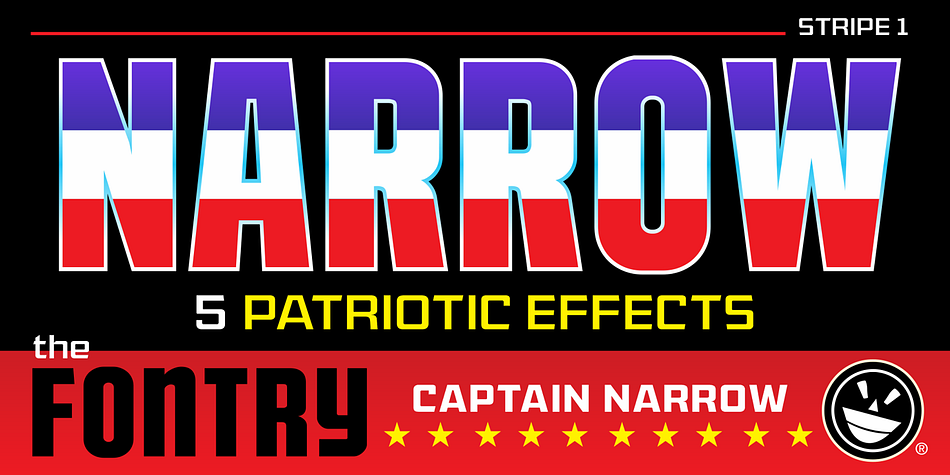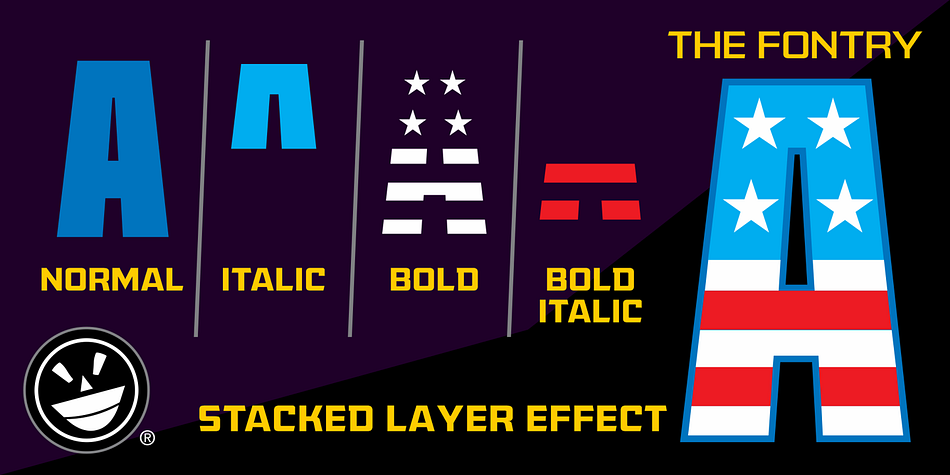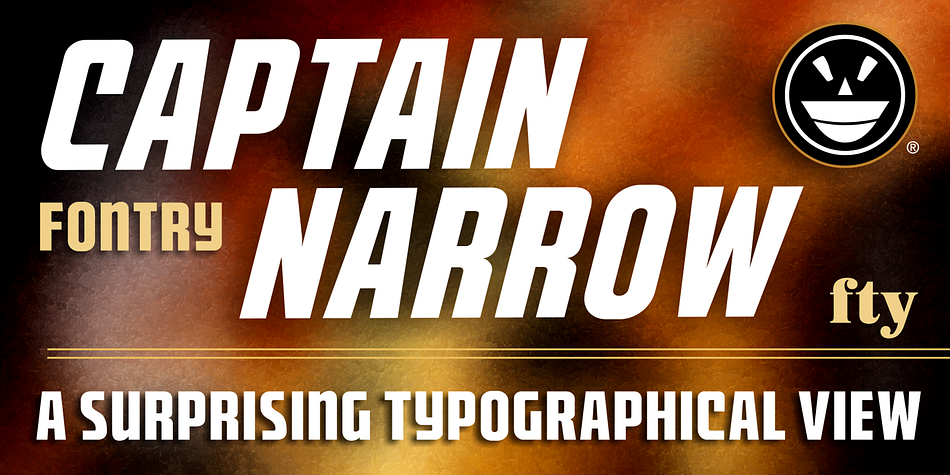
CFB1 CAPTAIN NARROW
CFB1 Captain Narrow is a novelty and display sans font family. This typeface has twenty-one styles and was published by The Fontry.
Do you love your country as much as you love fonts? Are you a Comic Fanboy? A CFB with a soft spot in your heart for those spangled superheroes willing to fight for the American way of life? Do you joyously celebrate the 4th of July? Do you admire the Pledge of Allegiance, Old Glory, Lady Liberty, the Star-Spangled Banner? Do you hum the National Anthem on your drive home? Do you put country first?
The American Patriot collection was inspired by the patriotic lettering styles that arose out of the golden and silver age of comics, when real heroes dawned the stars and stripes and battled the forces of tyranny with fierceness and unashamed pride. More…